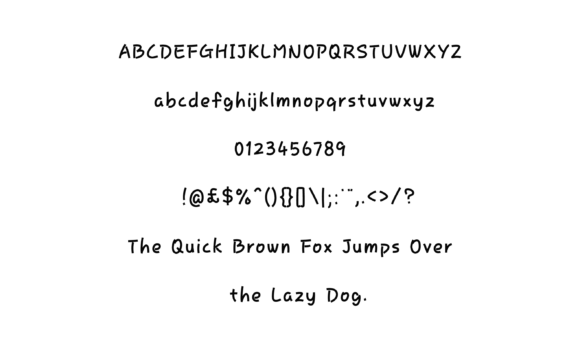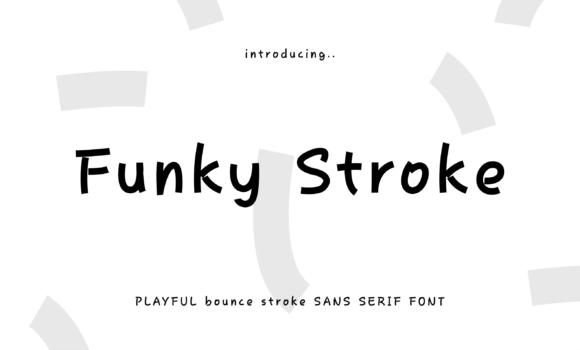
Introducing Funky Stroke Font: Adding a Playful Touch to Your Designs
Are you looking for a font that can add a dash of personality and whimsy to your designs? Look no further than the Funky Stroke Font. This playful, hand-drawn display typeface is crafted with expressive strokes and lively motion, making it perfect for a wide range of creative projects. In this article, we’ll take a closer look at the Funky Stroke Font, its unique features, and how it can elevate your designs.
The Unique Charm of Funky Stroke Font
Funky Stroke is a one-of-a-kind typeface that boasts an intentionally imperfect rhythm, giving each letter a unique personality. The irregular character heights and varied stroke weights create a natural, dancing motion that feels both organic and modern. This rhythmic quality makes it an exceptional choice for designs that need to feel approachable and fun, such as children’s educational materials, quirky lifestyle branding, and casual social media graphics.
Key Features of Funky Stroke Font
- Playful Hand-Drawn Design: Funky Stroke Font is a hand-drawn display typeface that exudes a sense of playfulness and creativity.
- Expressive Strokes: The font features expressive strokes that give it a lively and dynamic feel.
- Intentionally Imperfect Rhythm: The font’s irregular character heights and varied stroke weights create a unique and natural rhythm.
- Versatile: Funky Stroke Font is suitable for a wide range of design projects, from book covers to digital planners.
The Funky Stroke Font is designed to capture movement and energy, making it ideal for headlines, logos, posters, packaging, and creative branding projects that need a bold, handcrafted touch. Its minimalist yet expressive nature allows it to stand out without overwhelming your layout, making it a versatile tool for designers and crafters.
Use Cases for Funky Stroke Font
Funky Stroke Font is perfect for a variety of design projects, including:
- Children’s Educational Materials: The font’s playful and approachable nature makes it ideal for educational materials that need to engage young learners.
- Quirky Lifestyle Branding: Funky Stroke Font is perfect for lifestyle brands that want to add a touch of personality and whimsy to their branding.
- Casual Social Media Graphics: The font’s fun and playful nature makes it suitable for social media graphics that need to stand out and engage audiences.
- Book Covers: Funky Stroke Font can add a touch of personality and creativity to book covers, making them more eye-catching and appealing.
- Digital Planners: The font’s playful and modern feel makes it perfect for digital planners that need to be both functional and visually appealing.
Why Choose Funky Stroke Font?
There are many reasons why Funky Stroke Font stands out from other typefaces. Here are a few:
- Unique Personality: Funky Stroke Font has a unique personality that sets it apart from other typefaces.
- Versatility: The font is versatile and can be used for a wide range of design projects.
- Playful and Modern Feel: Funky Stroke Font has a playful and modern feel that makes it perfect for designs that need to be both fun and sophisticated.
| Font Name | Funky Stroke Font |
| Author | Uzairr |
In conclusion, Funky Stroke Font is a playful and versatile typeface that can add a touch of personality and whimsy to your designs. Its unique features, such as its intentionally imperfect rhythm and expressive strokes, make it perfect for a wide range of creative projects. Whether you’re a designer or crafter, Funky Stroke Font is an excellent choice for anyone looking to add a dash of fun and creativity to their work.
Get Ready to Add Some Funk to Your Designs!
With Funky Stroke Font, you can add a touch of personality and whimsy to your designs. So why wait? Get ready to add some funk to your designs and take your creativity to the next level!